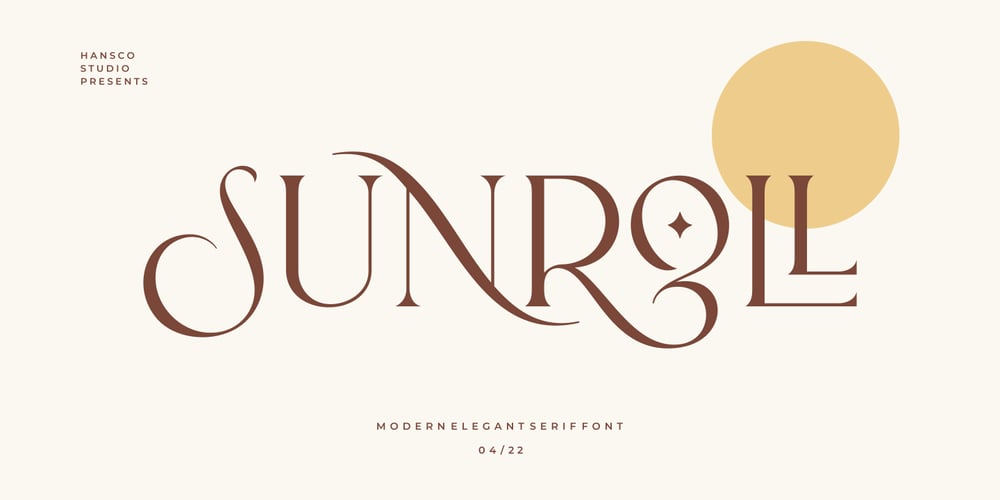
Sunroll Font Family was designed by Burhan Afif and published by HansCo. Sunroll contains 2 styles and family package options. Sunroll is a modern and playful display serif typeface that had that sleek and luxury feel. This font is perfectly into those classy moodboards and logos. It comes with ALL CAPS with many alternatives and ligatures, helps to create stunning logos, quotes, posts, blog posts. branding projects, magazine imagery, wedding invitations, and much more.Tutorial how to Install & use Alternate / Special Character : https://hanscostudio.com/tutorial/Enjoy!